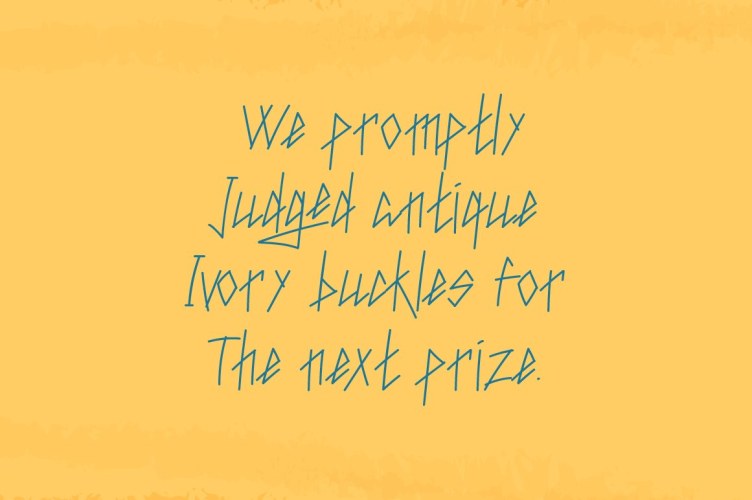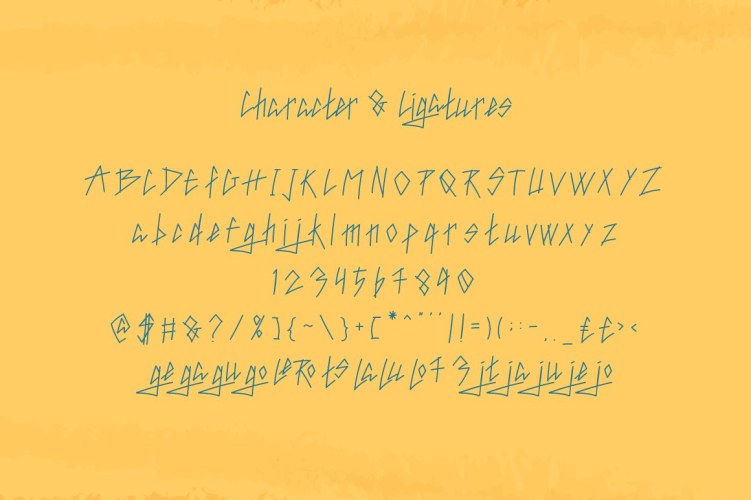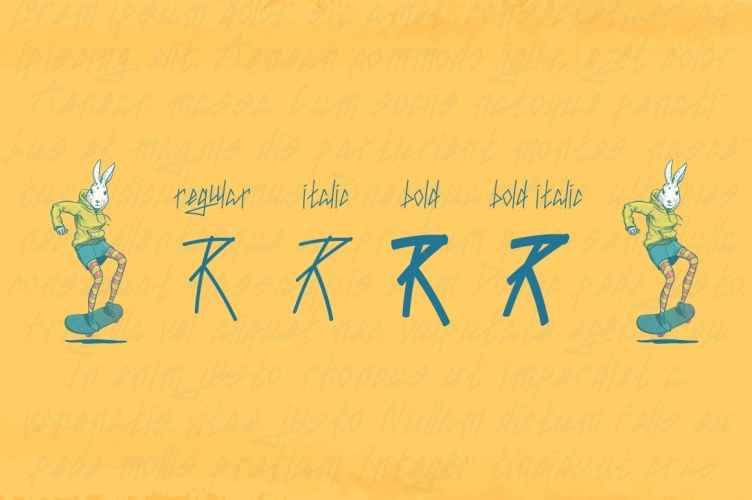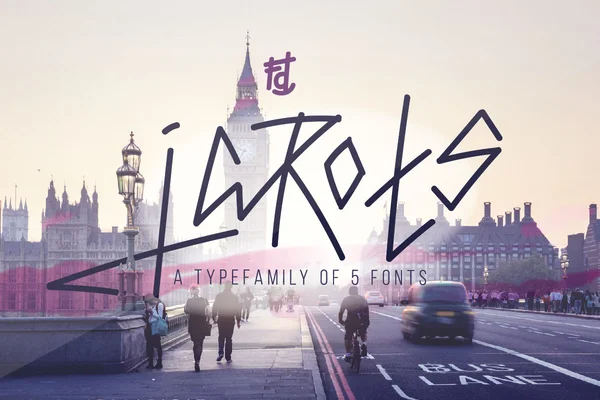
Jarots Font
Jarots Font is inspired by the spontaneous expression of youth. These fonts come with a regular, italic, bold and bold italic version! It applies itself perfectly to logo designs, branding projects, posters, and way more, covering a wide variety of niches.
Where Jarots Font works best
Thumbnails and covers
Jarots Font is built to be recognised small. Three words, high contrast, and it survives being scaled to a phone screen.
Event and match posters
Display letters at full width make a date and a name readable across a room, which is all a poster has to do.
Merch and streetwear
Heavy display shapes print cleanly on fabric and stay legible when the garment moves.
It sits in the Display Fonts group and reads as bold, branding, display, display fonts. That makes it a candidate wherever those qualities help: headings, packaging, social graphics and brand work. Set it at the size you plan to use before deciding.